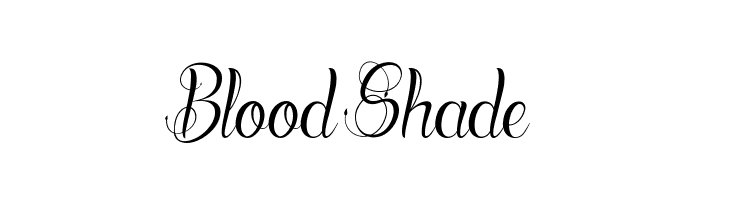
An elegant and ornate script font with intricate swirls and flourishes.
An elegant script font with intricate flourishes and a flowing cursive style.